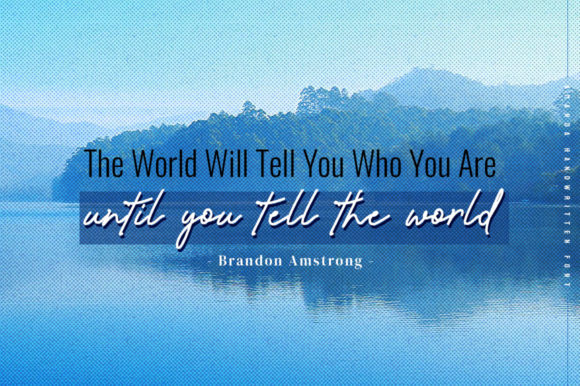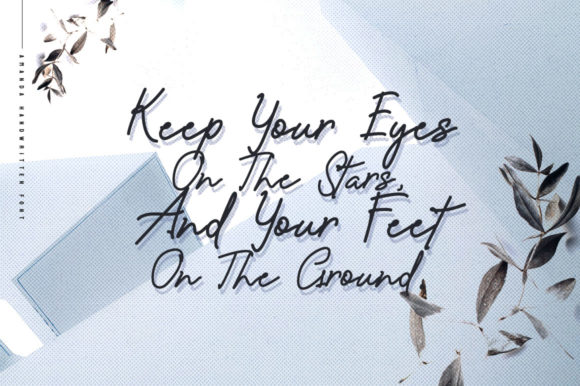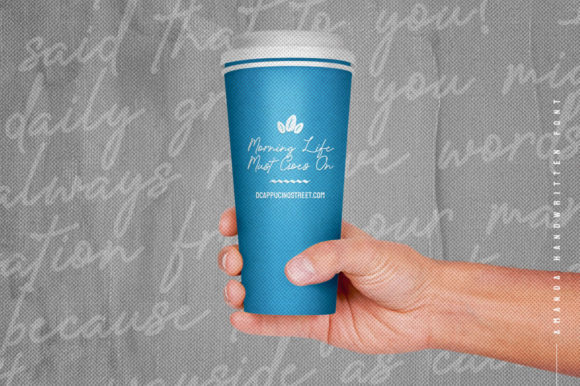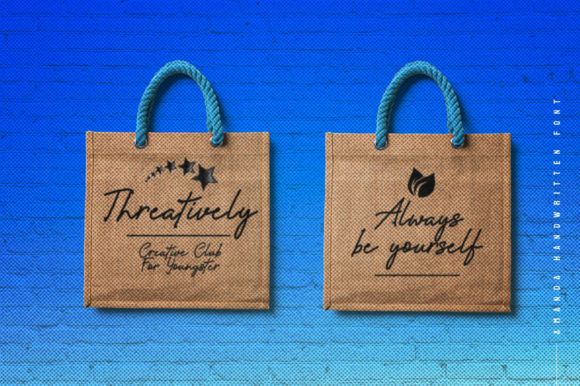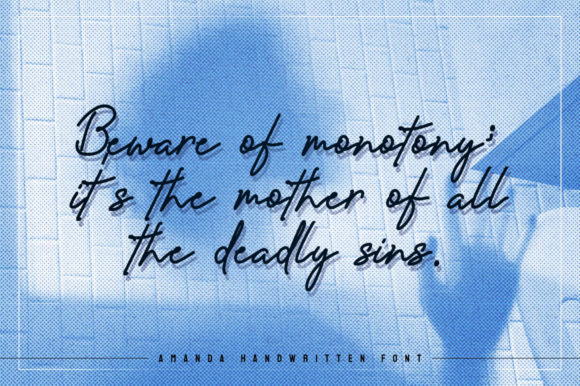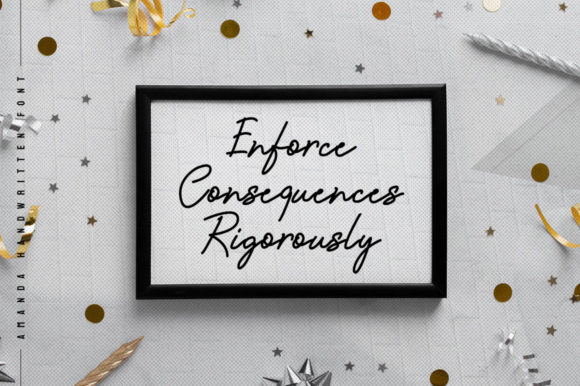
Amanda Font: Elevate Your Design with a Touch of Elegance
In the world of typography, fonts play a crucial role in conveying the tone and personality of a brand or design. For designers and crafters looking for a unique and stylish script font, Amanda Font is an excellent choice. This handwritten signature script is designed to bring a natural and stylish flow to various design projects, making it an ideal addition to your typography collection.
The Origin and Purpose of Amanda Font
The Amanda Font is a carefully crafted handwritten signature script, initially created with photographers in mind. Its primary purpose was to serve as a watermark for photography businesses, allowing them to add a touch of elegance and sophistication to their images. However, the versatility of this font soon became apparent, and it can now be used for a wide range of design applications.
Characteristics of Amanda Font
The Amanda Font boasts a natural and stylish flow, reminiscent of handwritten scripts. Its unique characteristics make it an excellent choice for designers and crafters looking to add a personal touch to their work. Some of the key features of this font include:
- Handwritten signature script: The Amanda Font has a distinctive handwritten feel, making it perfect for designs that require a personal touch.
- Natural flow: The font’s natural flow and rhythm make it easy to read and visually appealing.
- Stylish and elegant: The Amanda Font exudes elegance and sophistication, making it suitable for high-end designs and luxury brands.
Design Applications for Amanda Font
The versatility of the Amanda Font makes it an excellent choice for various design applications. Here are some of the ways you can use this font to elevate your designs:
- Photography watermarks: As originally intended, the Amanda Font makes an excellent watermark for photographers looking to add a touch of elegance to their images.
- Personal branding: Use the Amanda Font to create a consistent and stylish visual identity for your personal brand or business.
- Wedding invitations: Add a touch of romance and sophistication to your wedding invitations with the Amanda Font.
- Advertising: The Amanda Font’s stylish and elegant feel makes it an excellent choice for advertising designs, such as billboards, magazine ads, and social media graphics.
Why Choose Amanda Font?
With so many fonts available, why choose the Amanda Font? Here are some compelling reasons to consider:
- Unique and distinctive: The Amanda Font has a unique and distinctive feel that sets it apart from other script fonts.
- Easy to read: Despite its handwritten feel, the Amanda Font is easy to read, making it suitable for body text and headlines.
- Versatile: The Amanda Font can be used for a wide range of design applications, from personal branding to advertising.
Tips for Using Amanda Font
To get the most out of the Amanda Font, here are some tips to keep in mind:
- Pair with contrasting fonts: Pair the Amanda Font with contrasting fonts to create visual interest and hierarchy.
- Use for headlines and titles: The Amanda Font is perfect for headlines and titles, where its stylish and elegant feel can shine.
- Experiment with colors: Don’t be afraid to experiment with different colors and textures to add depth and interest to your designs.
In conclusion, the Amanda Font is a versatile and stylish script font that can elevate your designs with its natural and elegant flow. Whether you’re a designer, crafter, or photographer, this font is an excellent addition to your typography collection. With its unique characteristics, versatility, and ease of use, the Amanda Font is sure to become a favorite in your design arsenal.